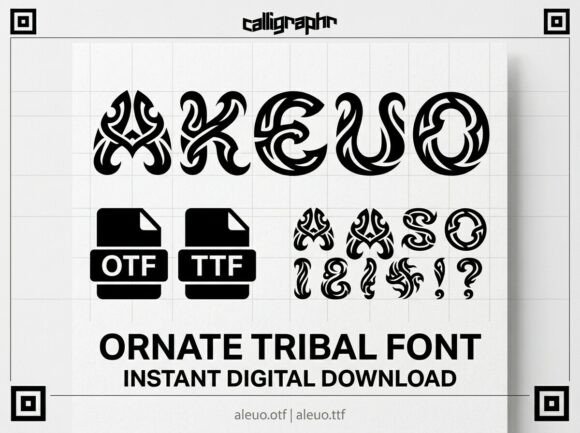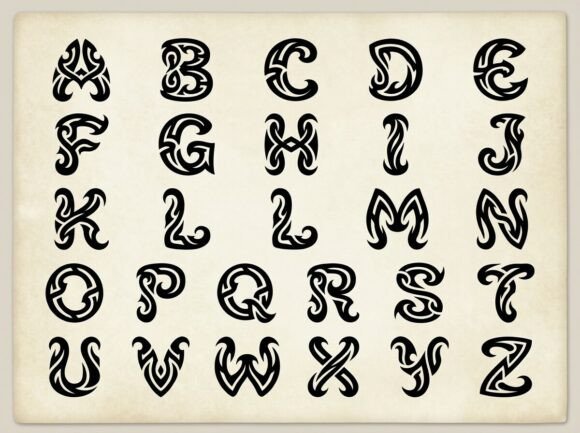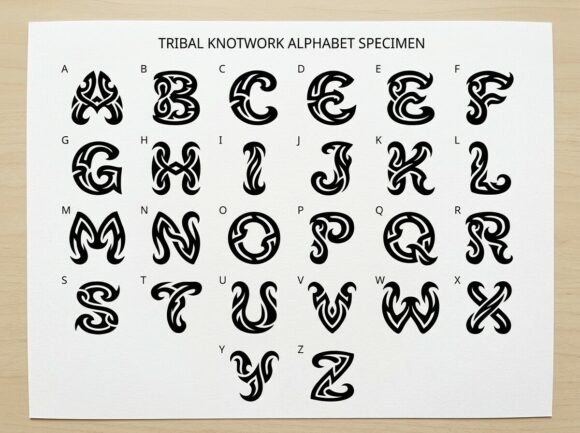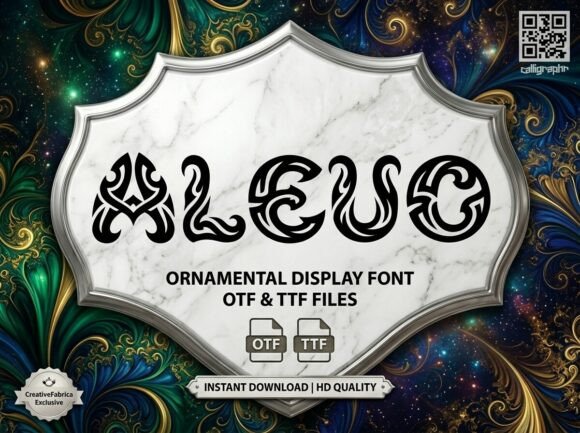
Introducing Aleuo Font: Elevate Your Creative Projects with a Decorative Display Font
Are you tired of using the same old fonts for your creative projects? Do you want to add a touch of personality and sophistication to your designs? Look no further than Aleuo Font, a decorative display font designed to be the centerpiece of any layout. With its distinct artistic elements and strong character, Aleuo Font is perfect for creators who want to break away from the ordinary and elevate their designs to the next level.
What Makes Aleuo Font Special?
Aleuo Font is a unique and stylish font that is designed to deliver a high-end, professional aesthetic without compromising on personality. Its bold and artistic elements make it perfect for a variety of design applications, from bold headlines to creative branding and packaging. Whether you’re a graphic designer, crafty DIY enthusiast, or social media influencer, Aleuo Font is the perfect tool to help you stand out from the crowd.
Key Features of Aleuo Font
So, what can you expect from Aleuo Font? Here are some of its key features:
• All-Caps Display Typeface: Aleuo Font is an all-caps display typeface, designed specifically for bold headlines, titles, and decorative initials. By design, it does not contain lowercase letters, making it a powerful tool for logos, titles, and other design applications where a strong, bold font is needed.
Uses for Aleuo Font
So, what can you use Aleuo Font for? The possibilities are endless! Here are some ideas to get you started:
• Bold Headlines: Use Aleuo Font to create bold, eye-catching headlines that grab attention and draw the reader in.
• Creative Branding: Use Aleuo Font to create unique and memorable brand identities that stand out from the crowd.
• Packaging Design: Use Aleuo Font to add a touch of personality and sophistication to your packaging designs.
• Logos: Use Aleuo Font to create bold, memorable logos that make a lasting impression.
• Social Media Graphics: Use Aleuo Font to create eye-catching social media graphics that grab attention and drive engagement.
Why Choose Aleuo Font?
So, why should you choose Aleuo Font for your creative projects? Here are just a few reasons:
• Unique and Stylish: Aleuo Font is a unique and stylish font that will add a touch of personality to any design.
• High-End Aesthetic: Aleuo Font delivers a high-end, professional aesthetic without compromising on personality.
• Versatile: Aleuo Font is versatile and can be used for a variety of design applications, from bold headlines to creative branding and packaging.
In conclusion, Aleuo Font is a decorative display font that is perfect for creators who want to elevate their creative projects and add a touch of personality to their designs. With its distinct artistic elements, strong character, and high-end aesthetic, Aleuo Font is the perfect tool for designers, crafters, and DIY enthusiasts who want to break away from the ordinary and create something truly special. So why wait? Download Aleuo Font today and take your designs to the next level!